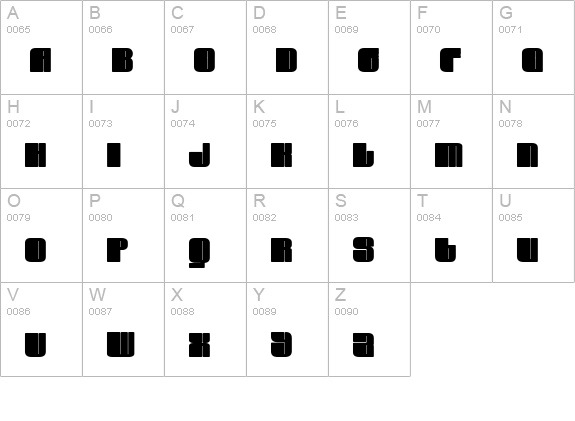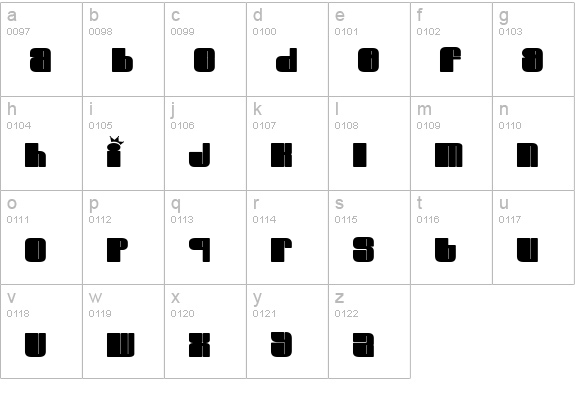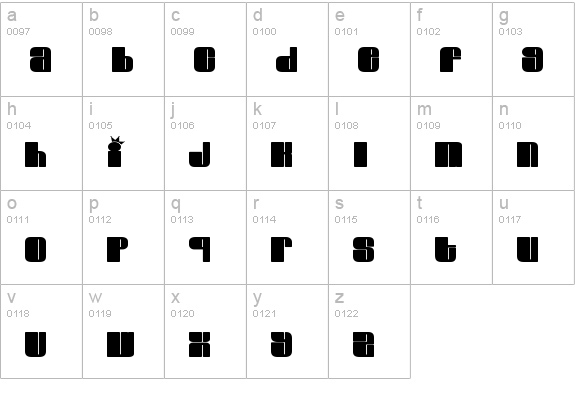
Introducing the captivating Elvis font - a bold and stylish typeface that exudes charisma and charm. This versatile font is perfect for a wide range of design projects, from posters and logos to branding and packaging. With its unique retro-inspired design, Elvis is sure to make your text stand out and capture attention. And the best part? Elvis font is absolutely free to download at FontsMarket.com! Simply head over to the website and get your hands on this fantastic font to add a touch of vintage flair to your next project. Don't miss out on the opportunity to elevate your designs with the timeless appeal of Elvis font. Download it now and let your creativity shine!